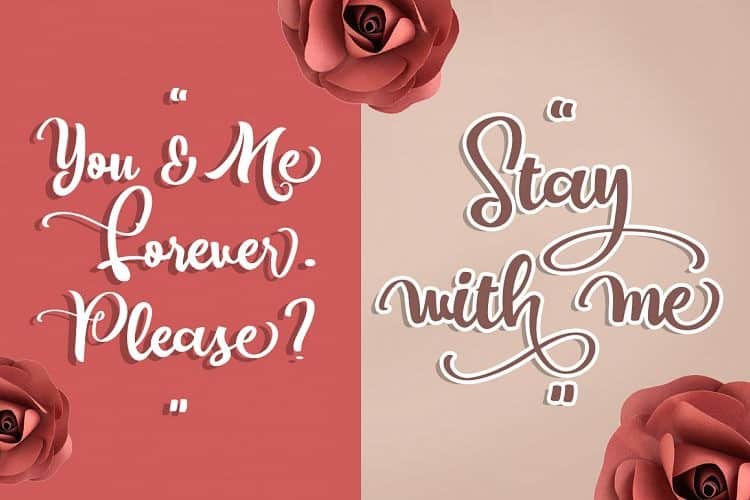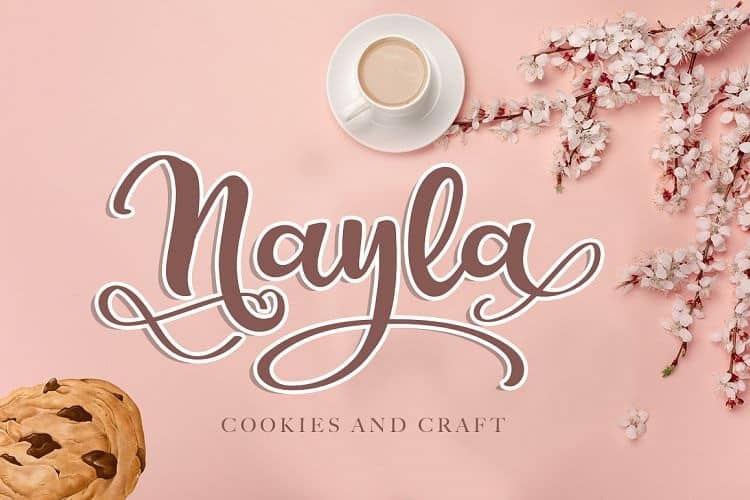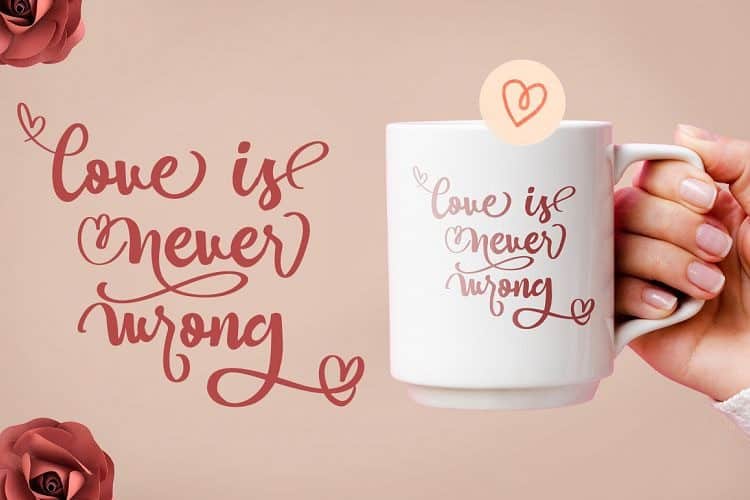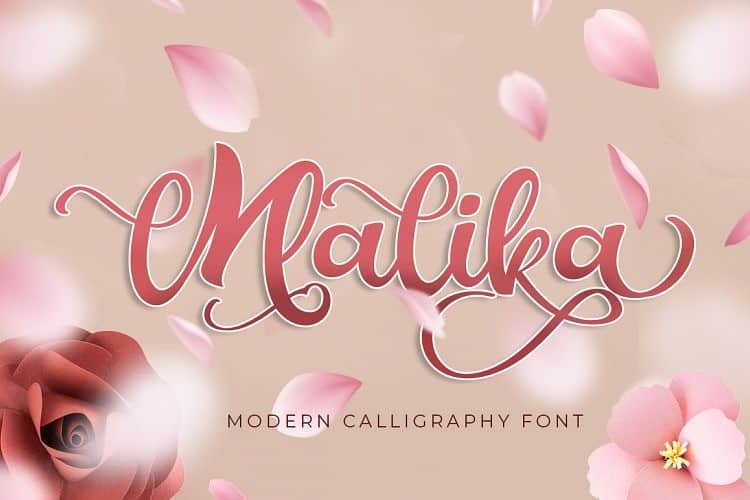
Modern Calligraphy Font with bold letter. Make your design gorgeous with a touch of love ! Malika Script Font With a calligraphy style, So beautiful on invitation like greeting cards, branding materials, business cards, quotes, posters, and more!